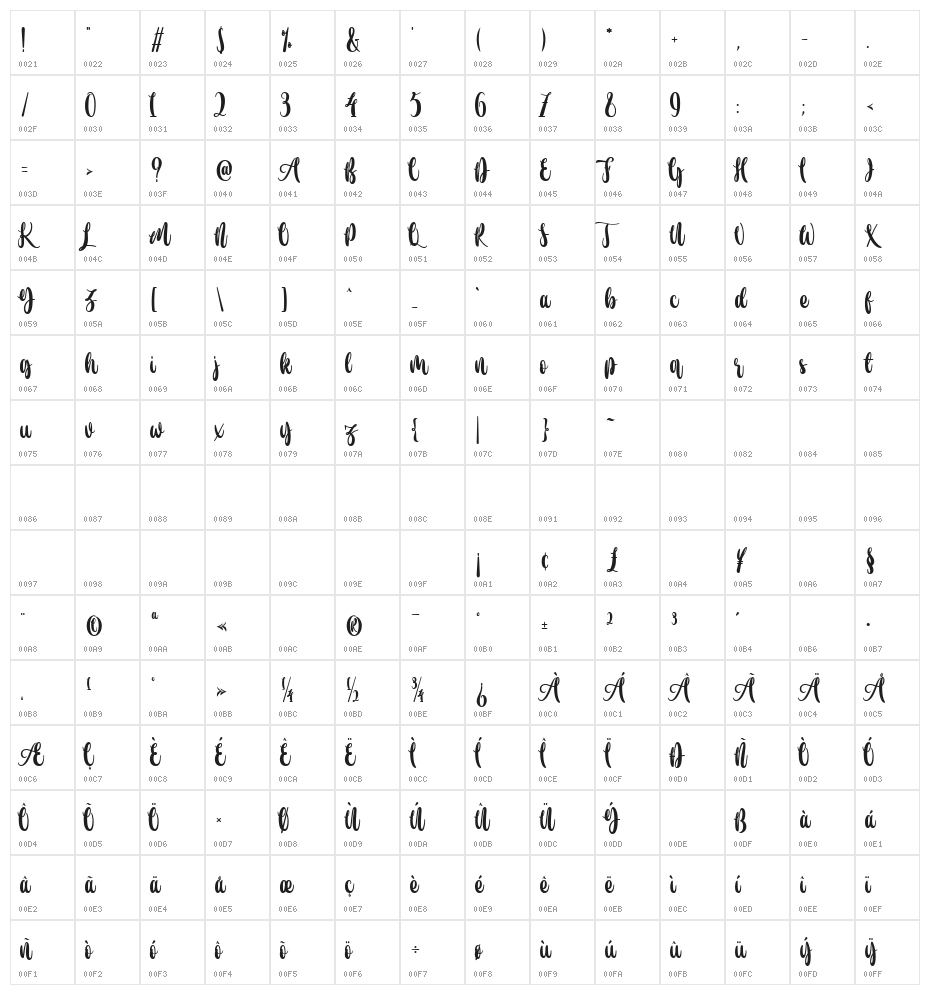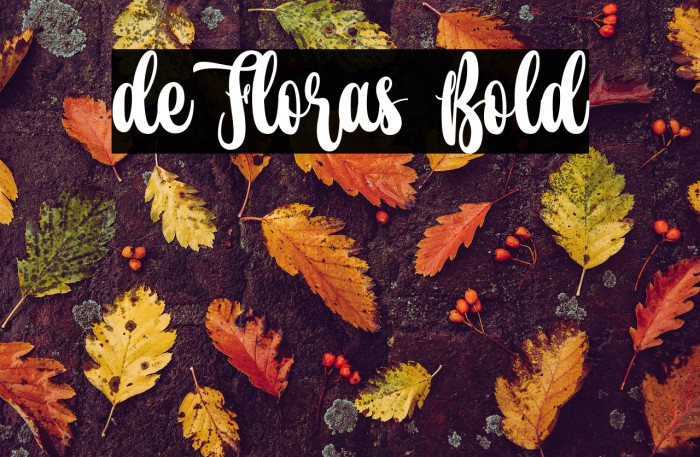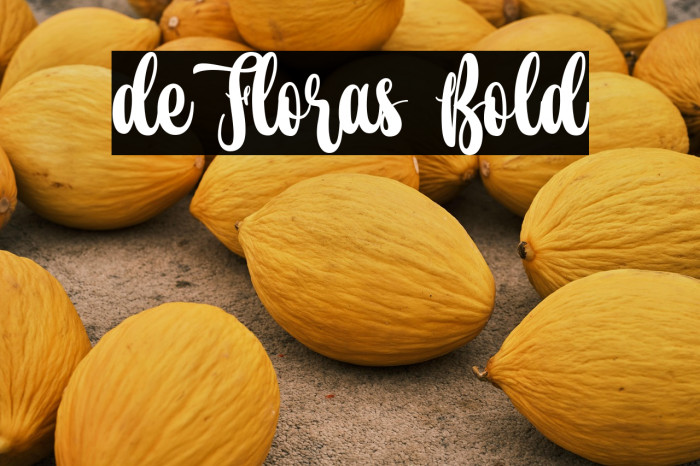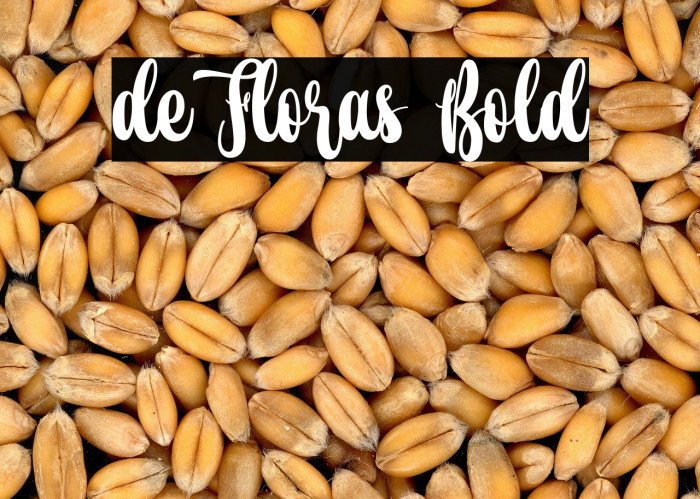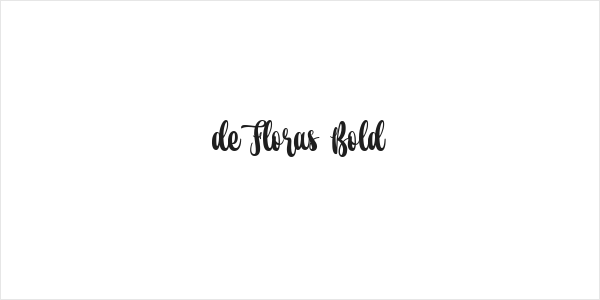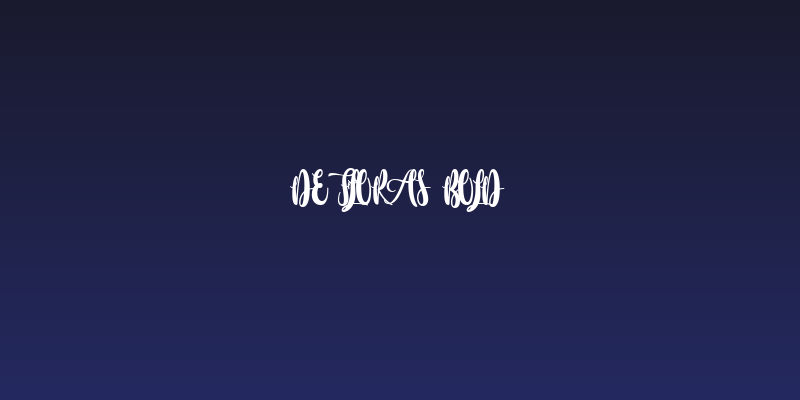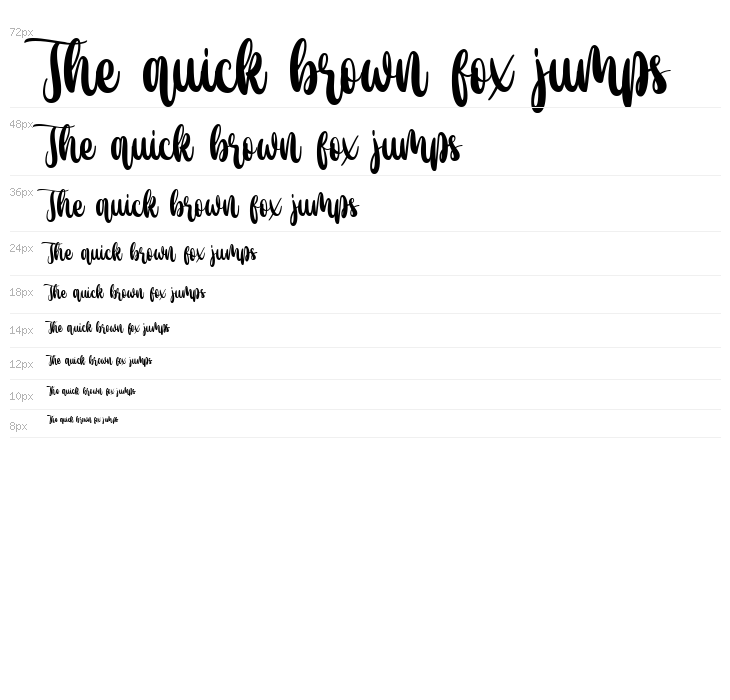
de Floras Bold Font
de Floras Bold Description
This font features a bold and expressive script style with a handwritten feel. The letters are characterized by their flowing, cursive nature, with exaggerated loops and swashes that give it a dynamic and lively appearance. The uppercase letters are particularly ornate, with intricate details that add a touch of elegance. The lowercase letters maintain the same fluidity, ensuring consistency throughout the typeface. The numerals and special characters are designed to match the overall aesthetic, making them suitable for decorative purposes. This font is perfect for projects that require a personal and artistic touch.
| Proposed Projects | Ideal for wedding invitations, greeting cards, branding, and artistic posters. |